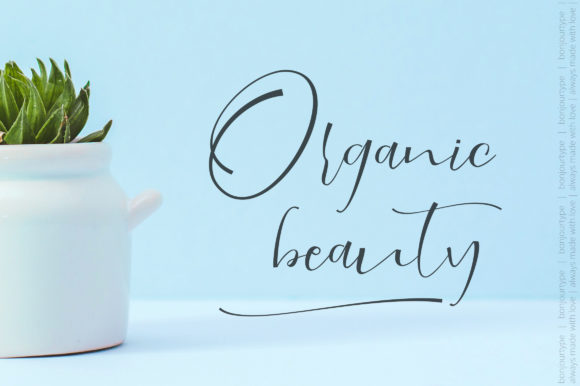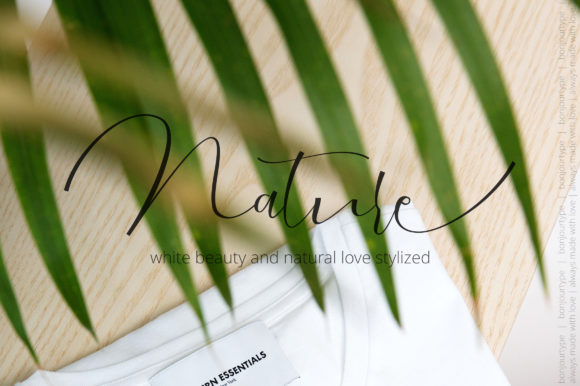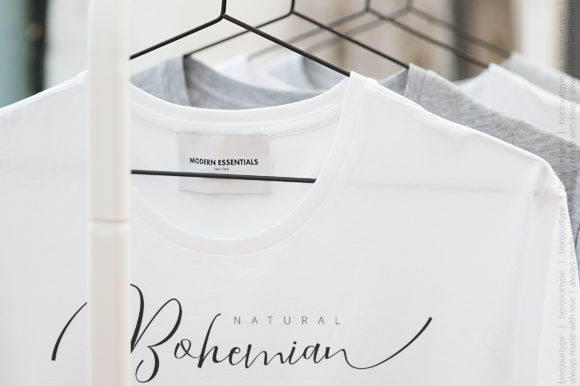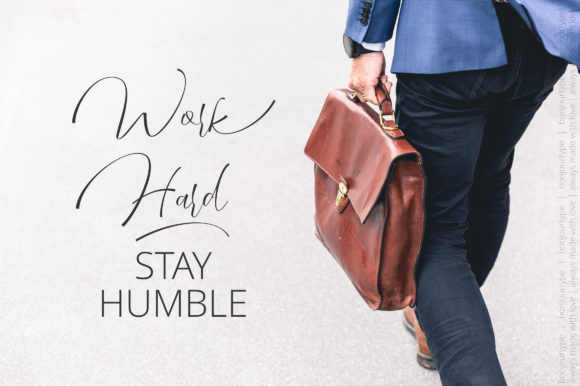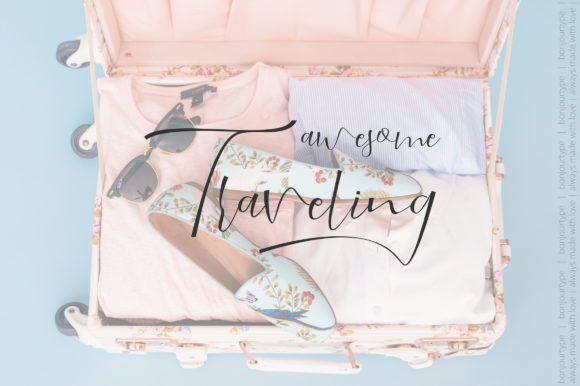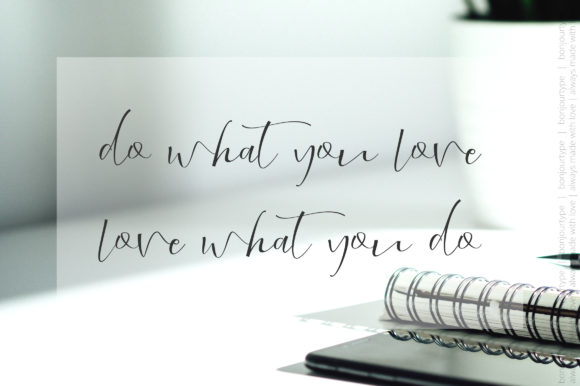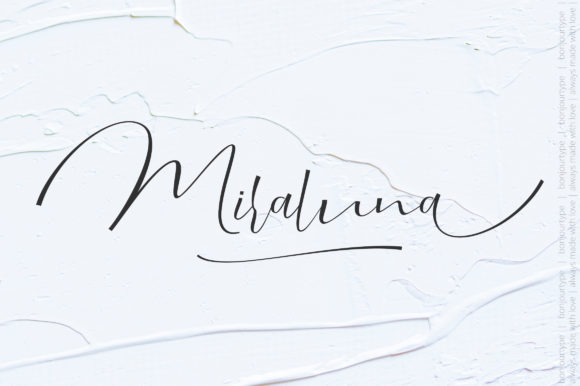
Miraluna Font
About Miraluna Font
This hand-drawn and cut font is perfect for creating stylish & stylish letters. Whether it’s for logos, product packaging, or merchandise. Miraluna is guaranteed to provide the best quality!